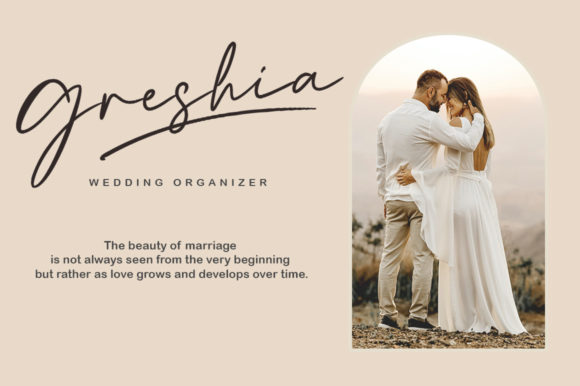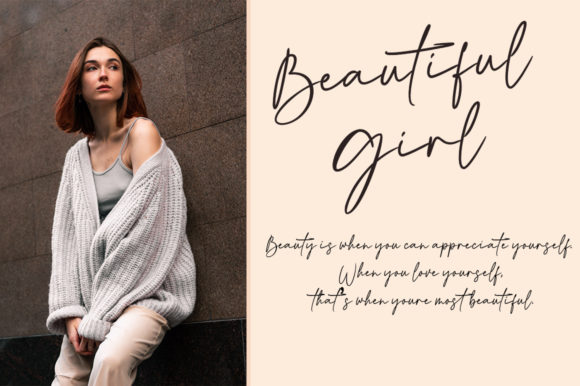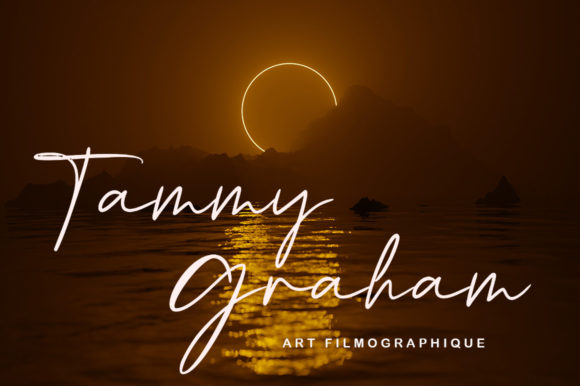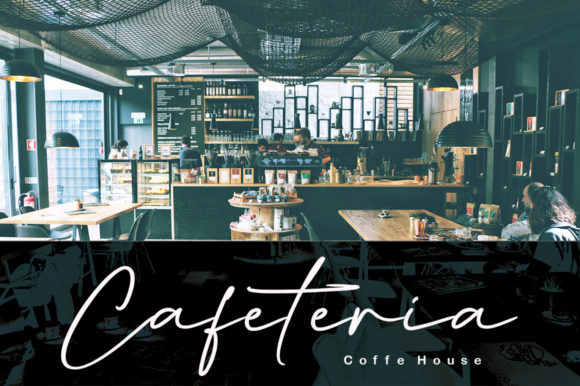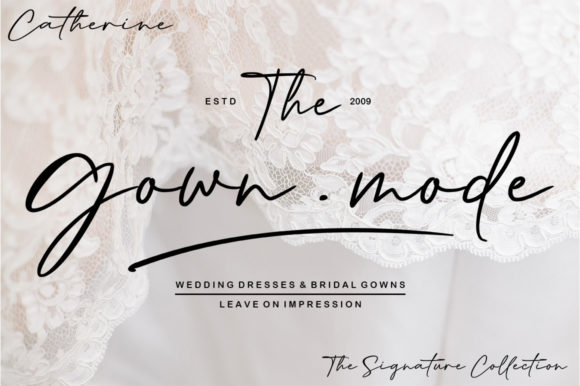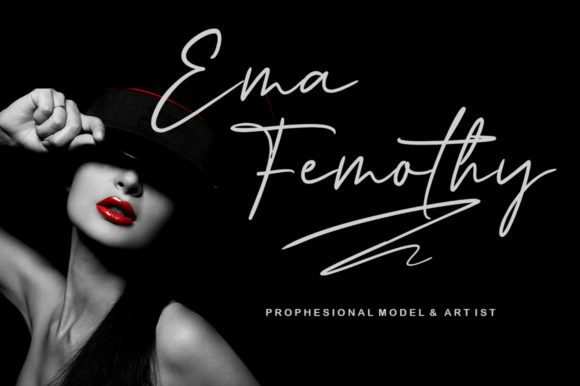
Catherine Font: Elevate Your Designs with Elegance and Sophistication
Are you looking for a font that exudes style, elegance, and sophistication? Look no further than Catherine Font, a stunning script font that is sure to take your designs to the next level. With its thin lettering, beautiful swashes, and PUA encoding, Catherine Font is the perfect choice for designers and crafters who want to add a touch of luxury to their creations.
What is Catherine Font?
Catherine Font is a stylish, thin lettered, and elegant script font that is designed to make a statement. Its delicate lines and beautiful swashes make it perfect for a variety of design projects, from wedding invitations and stationery to branding and advertising materials. Whether you’re a professional designer or a crafty DIY enthusiast, Catherine Font is sure to impress.
PUA Encoding: What Does it Mean?
One of the standout features of Catherine Font is its PUA (Private Use Area) encoding. But what does that mean, exactly? In simple terms, PUA encoding allows you to access all of the glyphs and swashes in the font with ease. This means that you can easily add flourishes and other decorative elements to your text, giving your designs an extra touch of elegance and sophistication.
Features of Catherine Font
So what makes Catherine Font so special? Here are just a few of its key features:
- Stylish and elegant design: Catherine Font is designed to be stylish and elegant, making it perfect for designs that require a touch of sophistication.
- Thin lettering: The font’s thin lettering makes it perfect for use in designs where you want to create a sense of luxury and refinement.
- PUA encoded: With PUA encoding, you can easily access all of the glyphs and swashes in the font, giving you maximum creative flexibility.
How to Use Catherine Font
So how can you use Catherine Font in your designs? Here are a few ideas to get you started:
- Wedding invitations and stationery: Catherine Font is perfect for wedding invitations, thank you cards, and other stationery items.
- Branding and advertising: The font’s elegant design makes it perfect for use in branding and advertising materials, such as logos, brochures, and flyers.
- DIY crafts: Catherine Font is also great for use in DIY crafts, such as scrapbooking, card making, and other paper crafts.
Tips for Getting the Most Out of Catherine Font
Here are a few tips for getting the most out of Catherine Font:
- Experiment with different sizes and colors: Don’t be afraid to experiment with different sizes and colors to find the look that works best for your design.
- Use the swashes and glyphs: Take advantage of the font’s PUA encoding to add swashes and glyphs to your text.
- Pair it with other fonts: Catherine Font looks great when paired with other fonts, so don’t be afraid to experiment with different combinations.
In conclusion, Catherine Font is a stylish, elegant, and sophisticated script font that is perfect for designers and crafters who want to add a touch of luxury to their creations. With its thin lettering, beautiful swashes, and PUA encoding, Catherine Font is sure to elevate your designs to the next level. So why wait? Download Catherine Font today and see the amazing results for yourself!